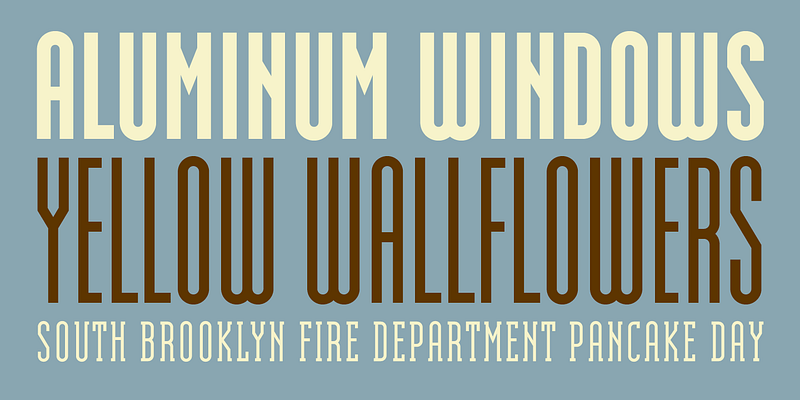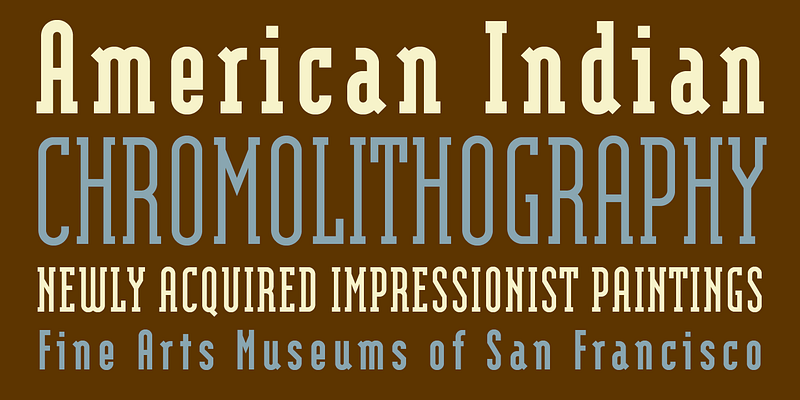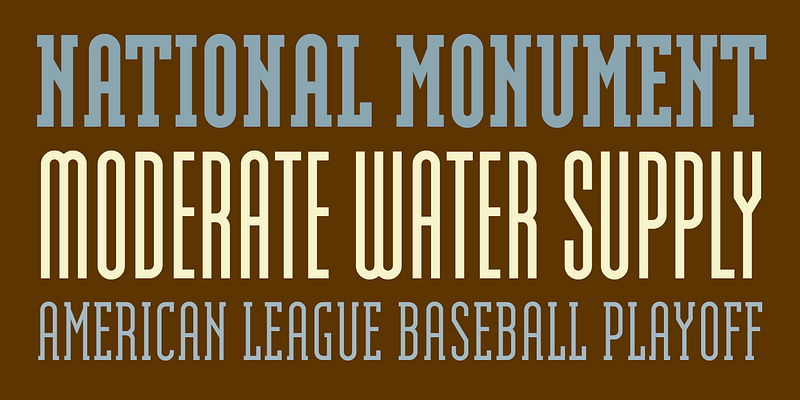
Modula was the first high resolution headline typeface that Licko designed using the Macintosh. It was created during a time when much of the industry’s digital font creation efforts were concentrated in the mechanical digitization of traditional photo or lead typeface designs. When digitizing existing analog fonts, the jagged lines of the resulting bitmap (or screen) fonts constructed hideous emulations of the original. Licko felt that through such imitations one failed to utilize the capabilities of the digital process. While she respected the nuances of our traditional typefaces and their evolution in conjunction with reading habits, she also felt that the forms of computer fonts must result as an integral part of the digital process, not in spite of it. Modula is firmly grounded in this idea.
In 1985, the computer was very crude as far as being able to produce subtle curves, but it was outstanding at producing perfect geometric elements. As a starting point for Modula, Licko used the proportions of her earlier Emperor Fifteen bitmap design and applied the precision of the computer’s geometric rendering abilities, as well as other technological quirks she stumbled upon while experimenting. For instance, she discovered that as a shortcut to increasing the resolution of bitmap typefaces from screen to printer some programs offered a “smooth” routine that polished stairstep pixels into smooth diagonal and circular segments. This smooth printing option provided by the early Macintosh inspired much of Modula’s basic look and feel.
Modula is available in both serif and sans serif versions, each with three weights.